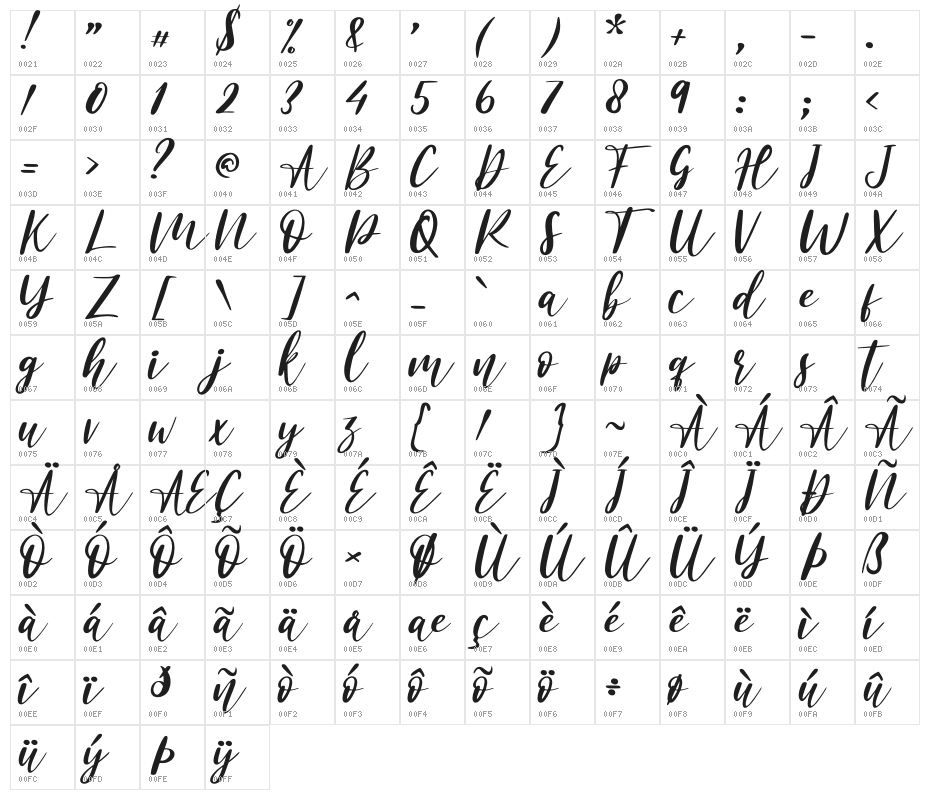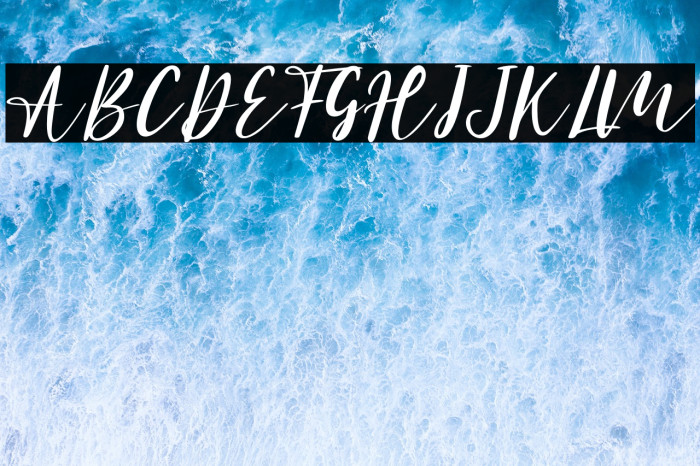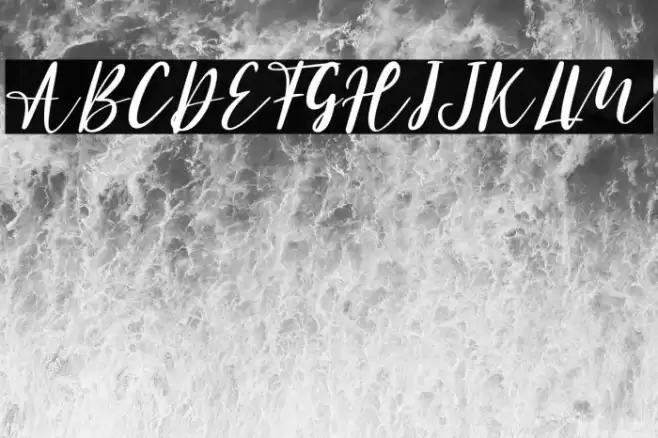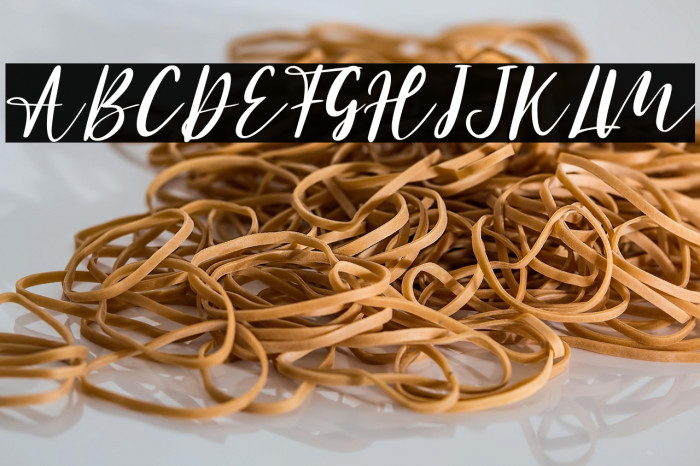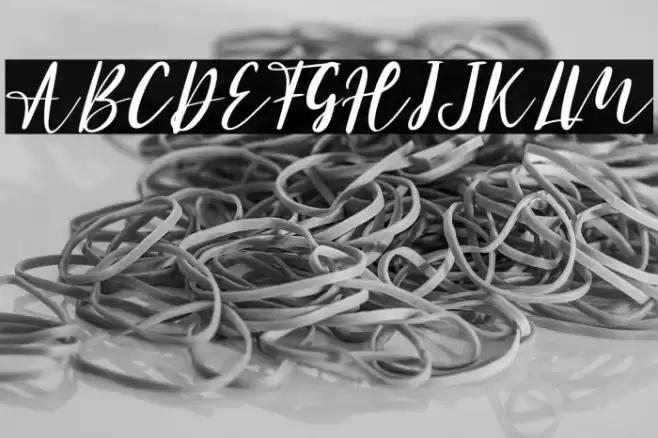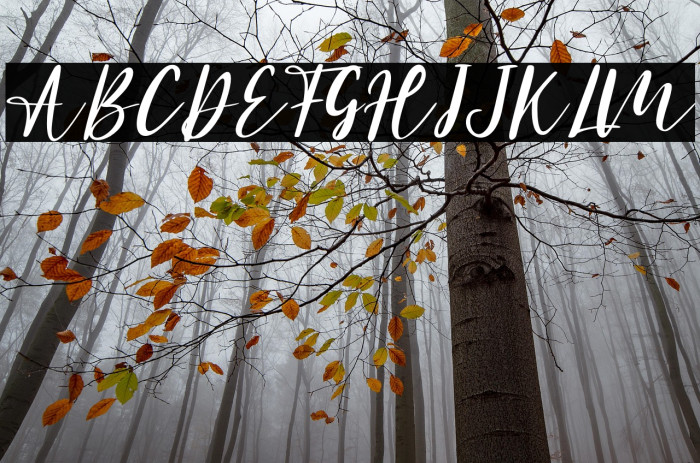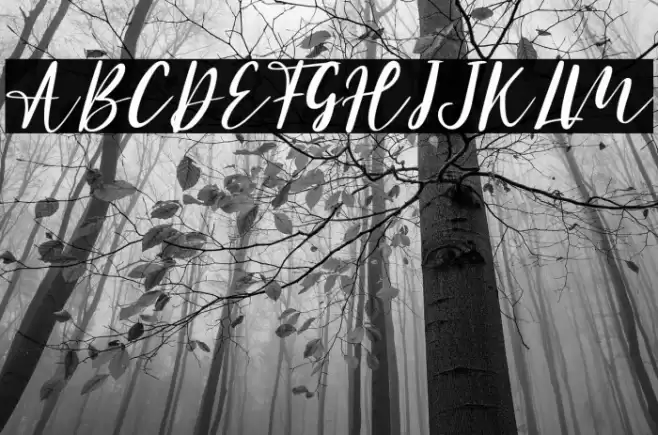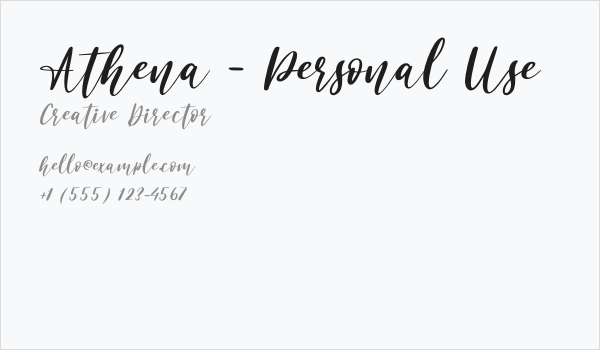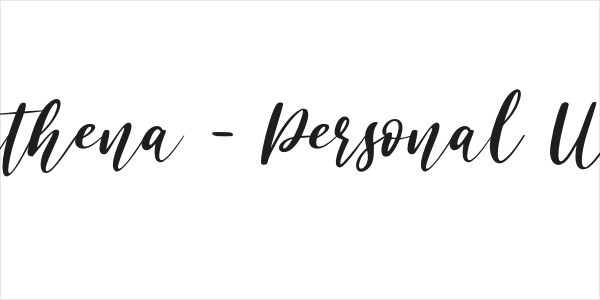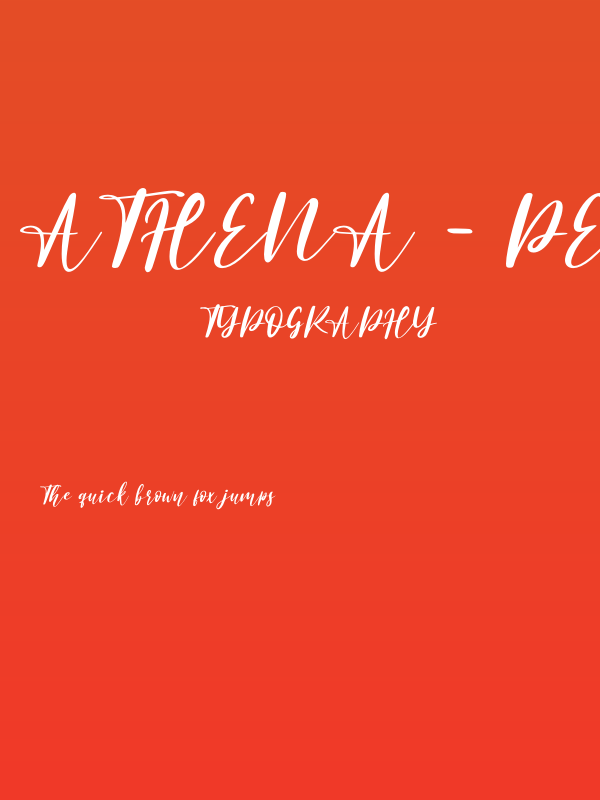
Athena - Personal Use Font
| 用途 | Logos, Invitations, Artistic projects |
| おすすめプロジェクト | Ideal for wedding invitations, greeting cards, personal branding, and artistic projects. |